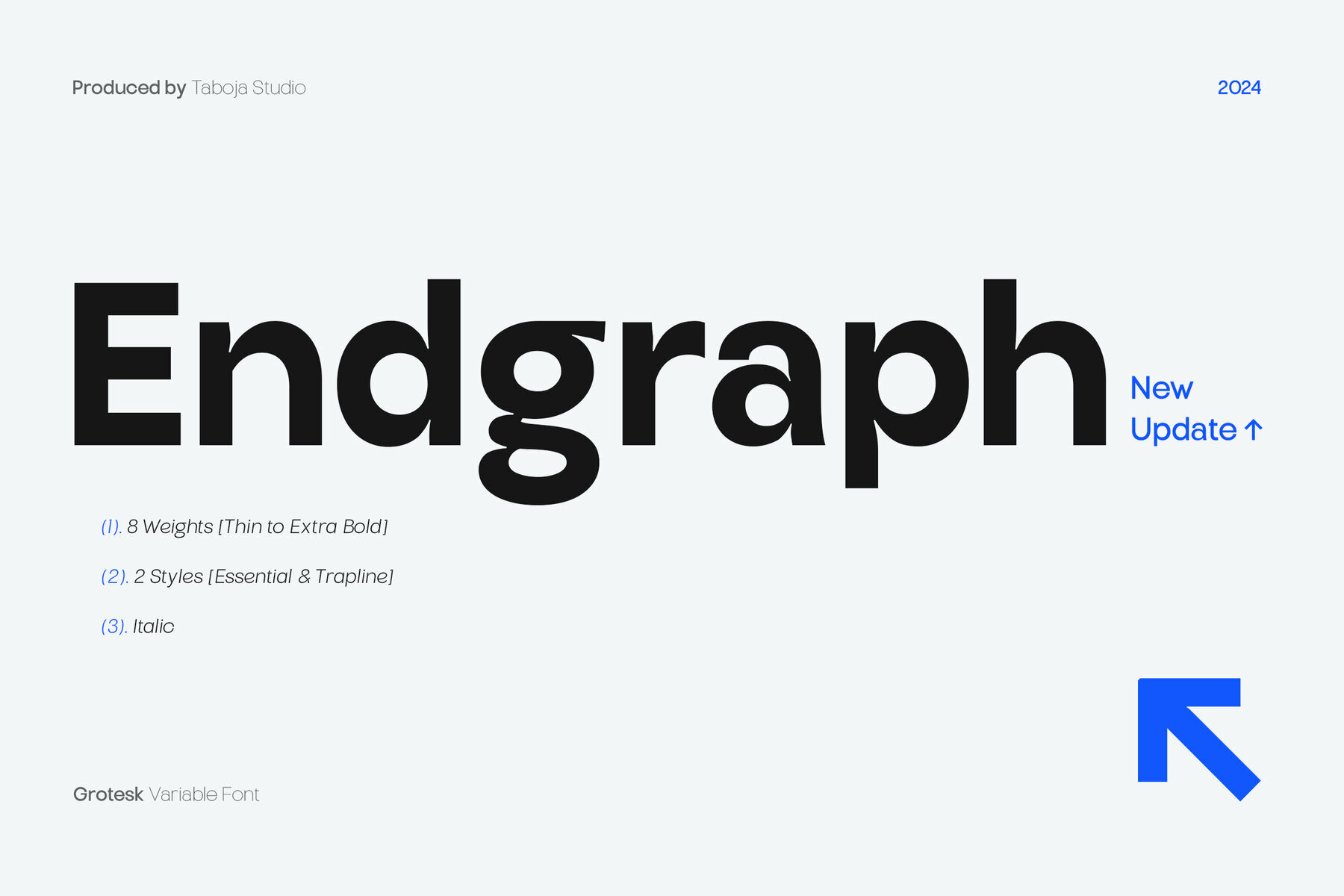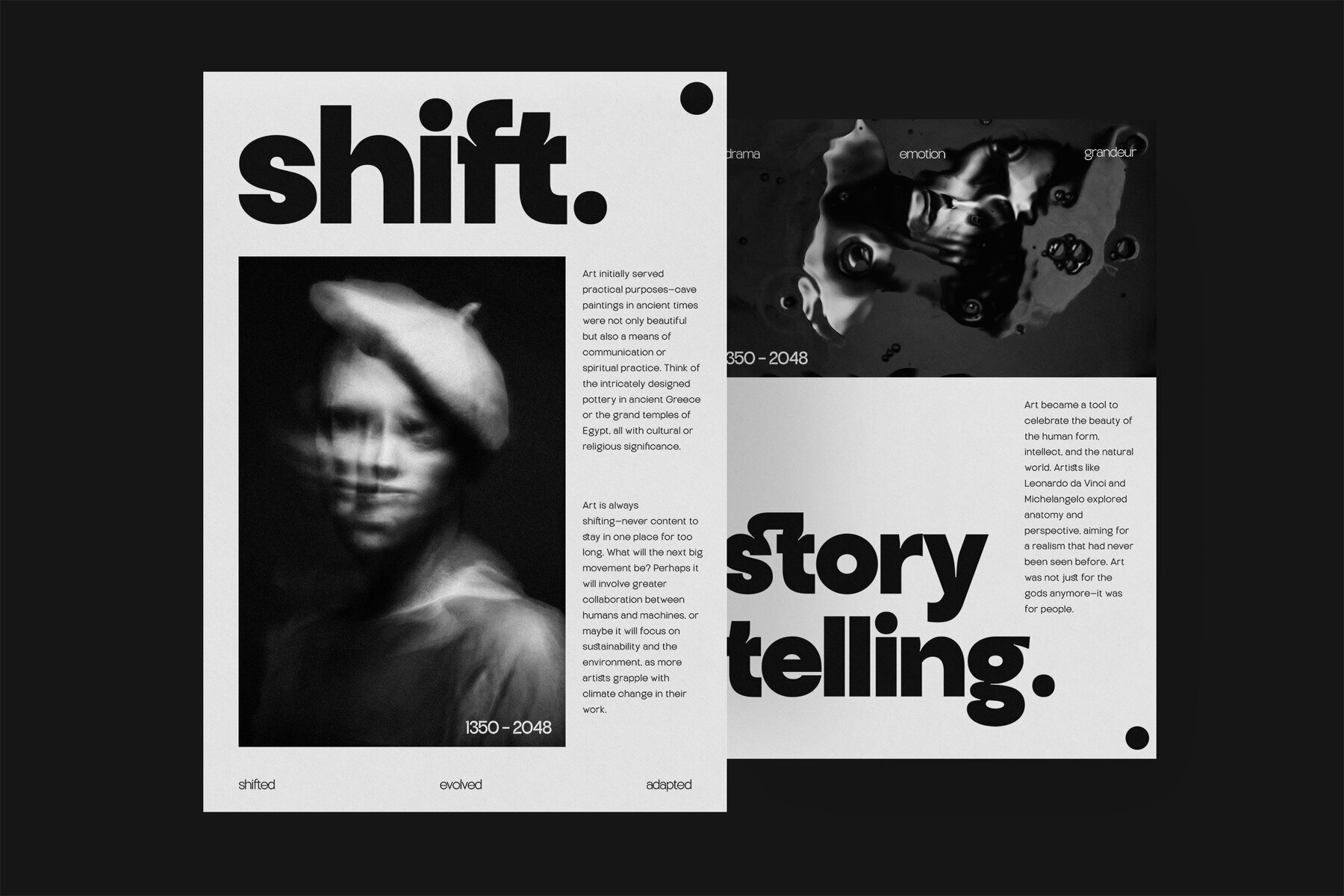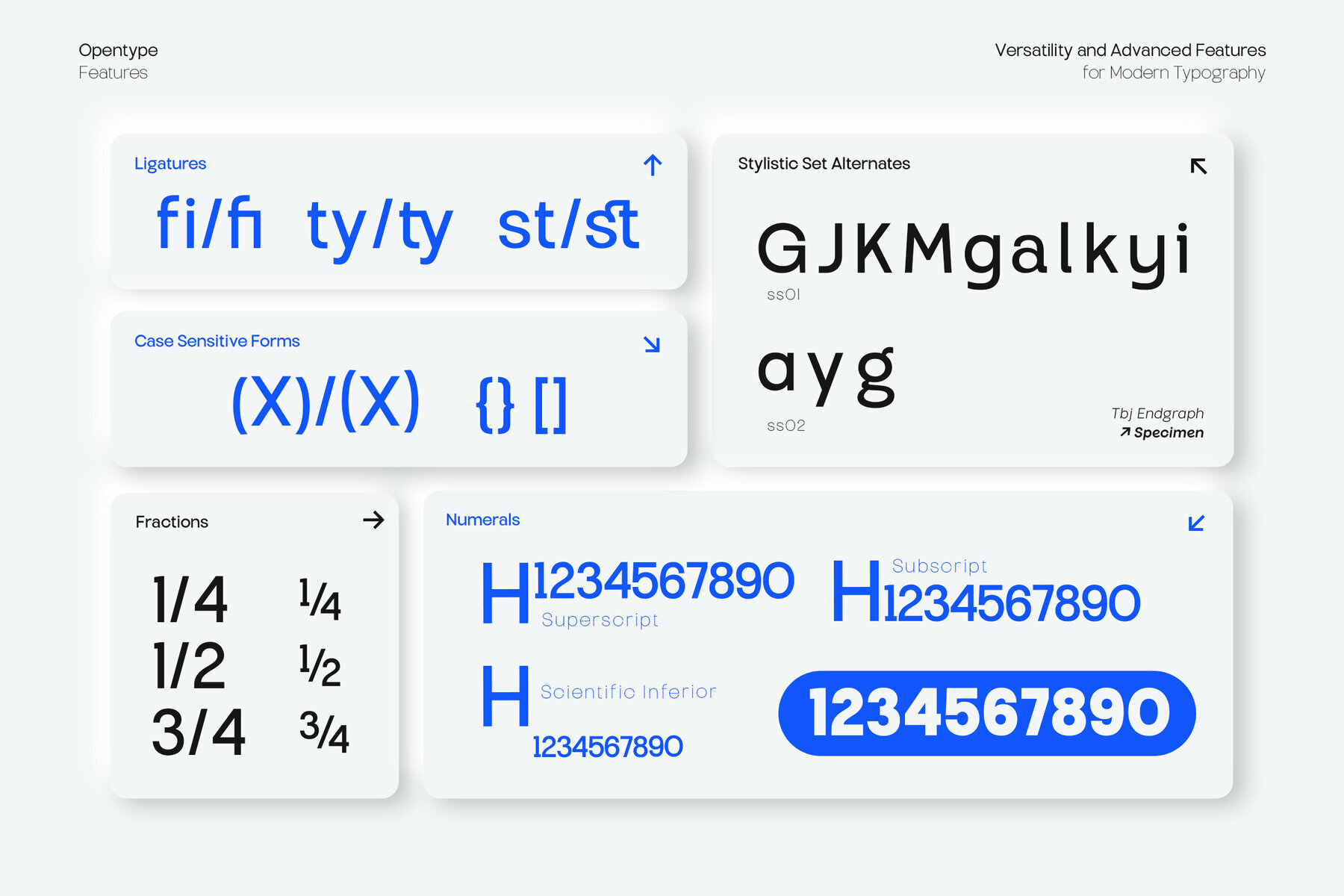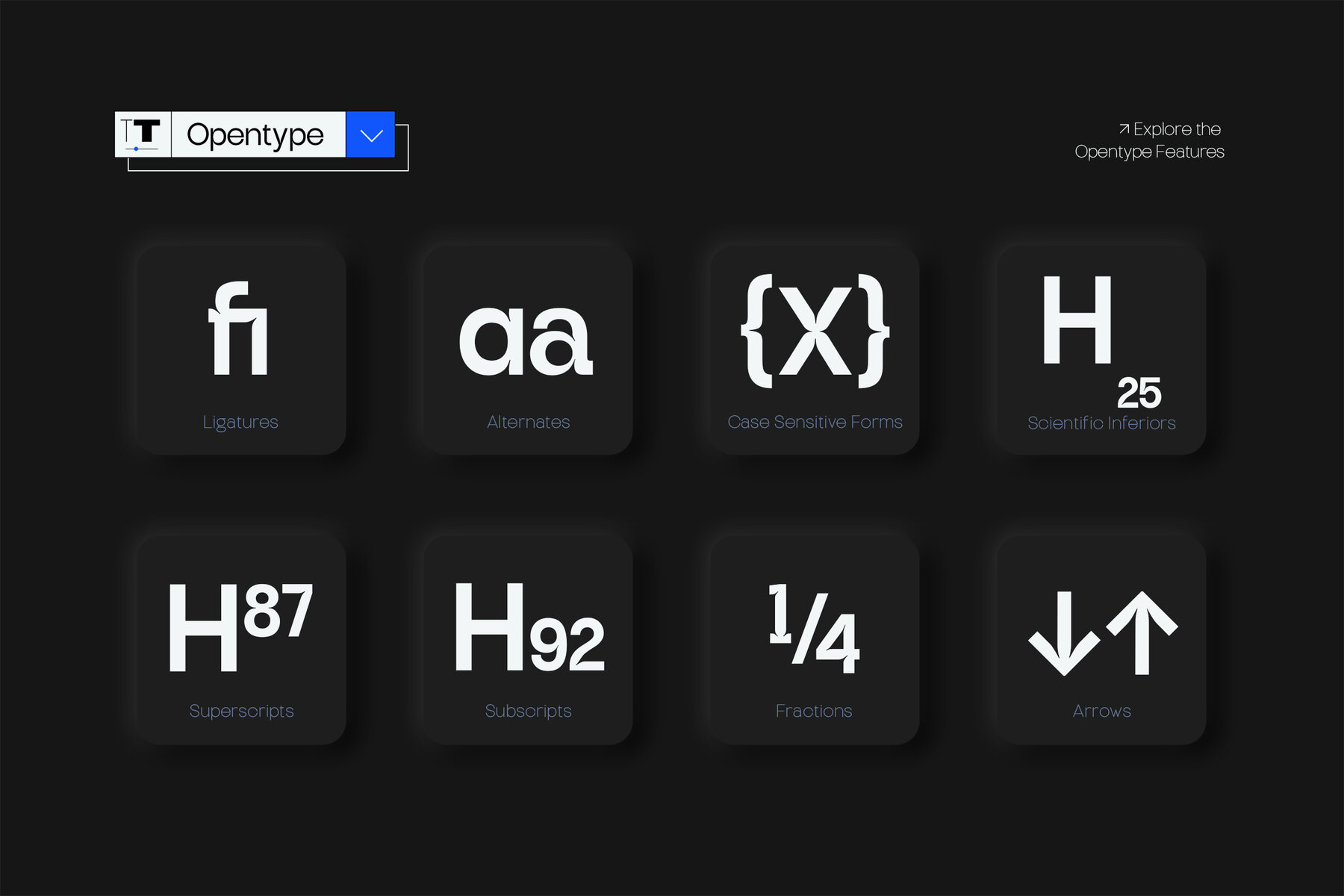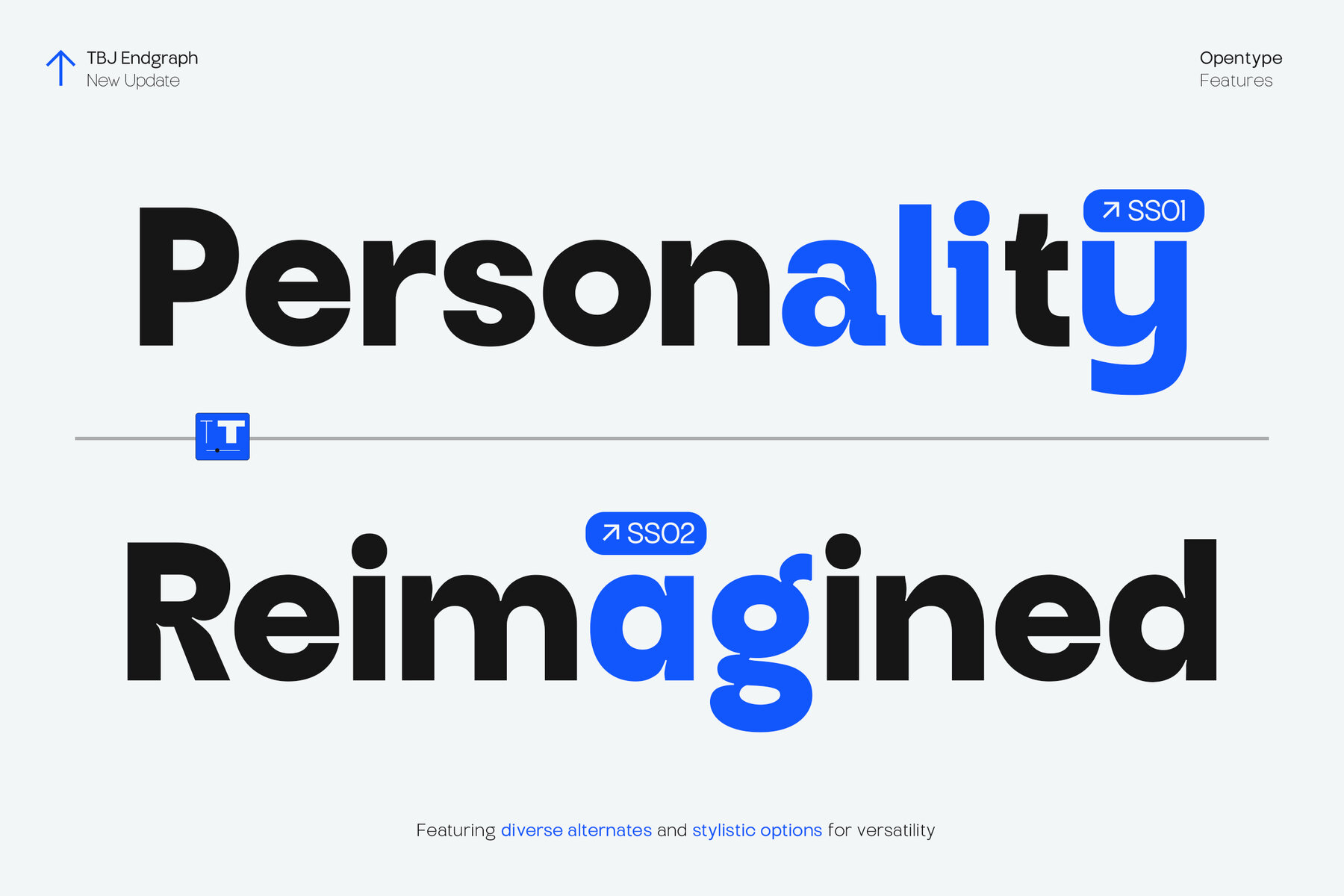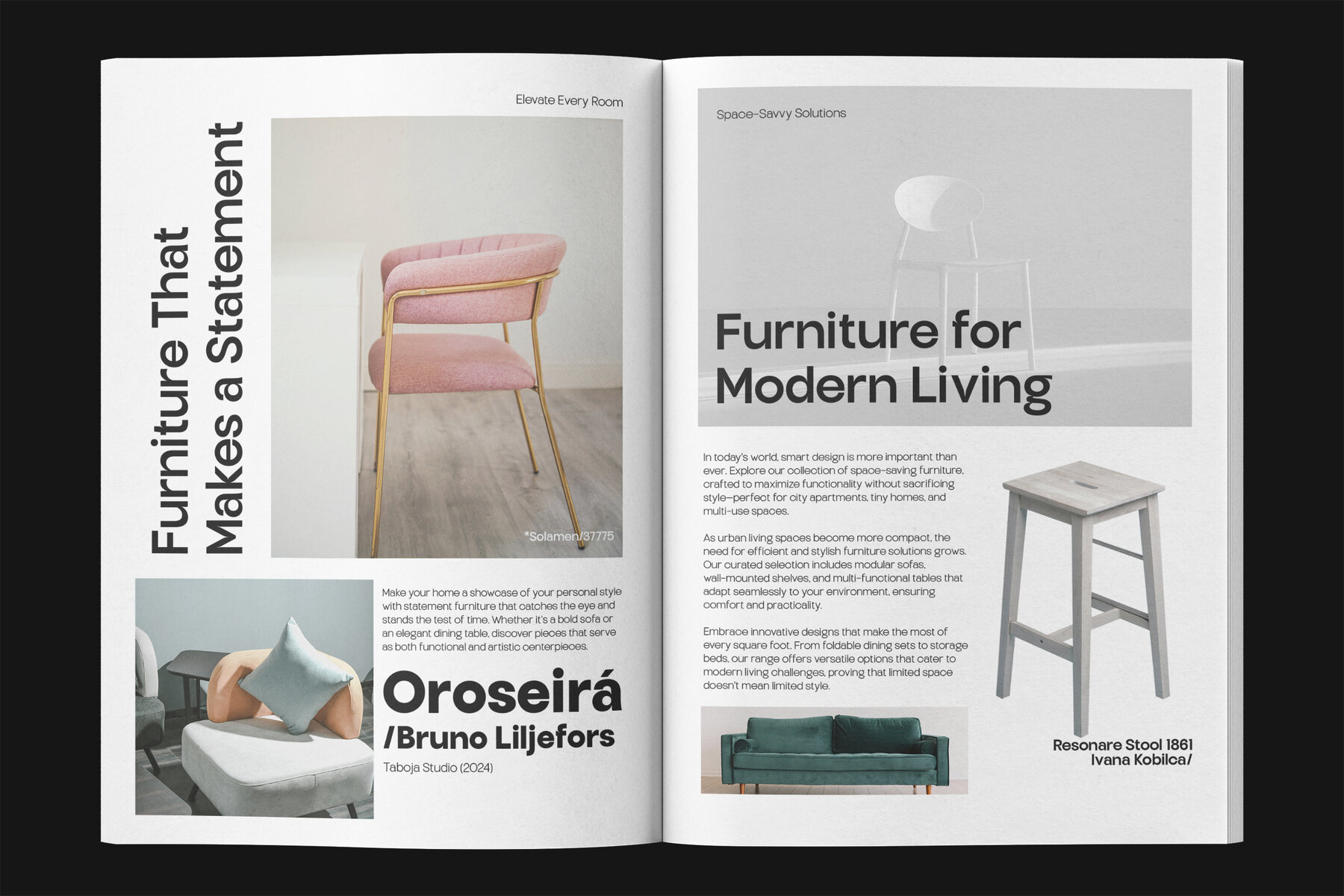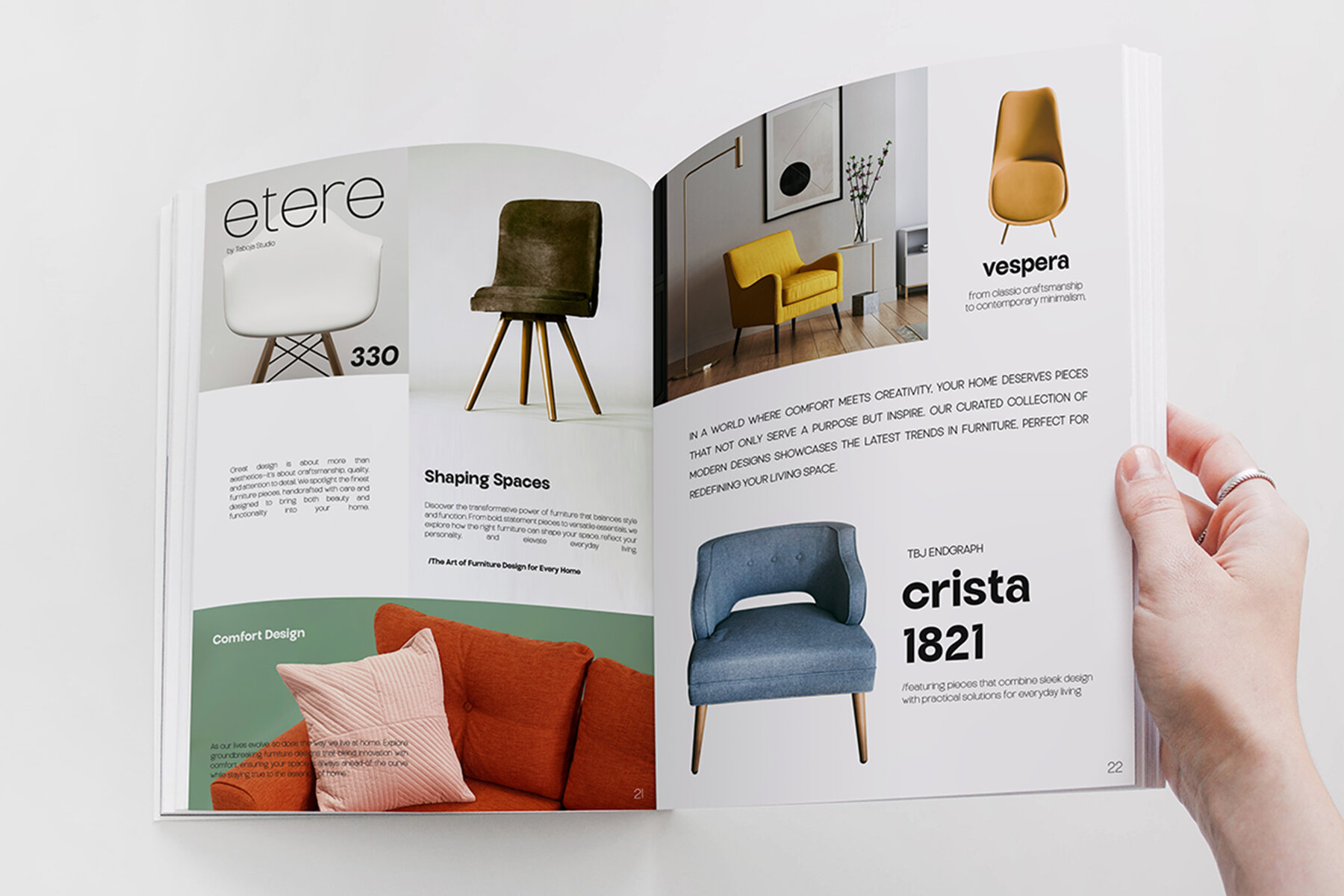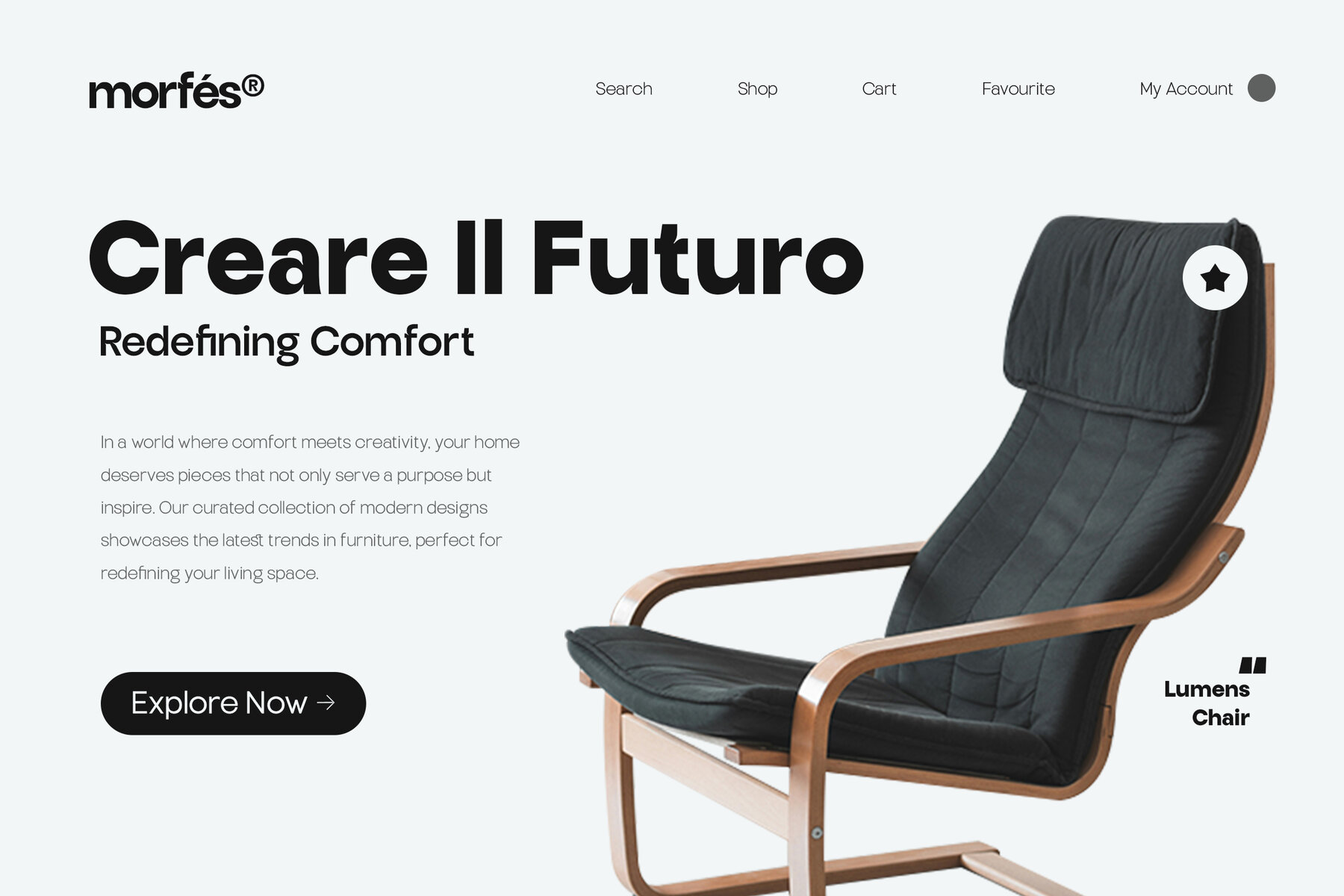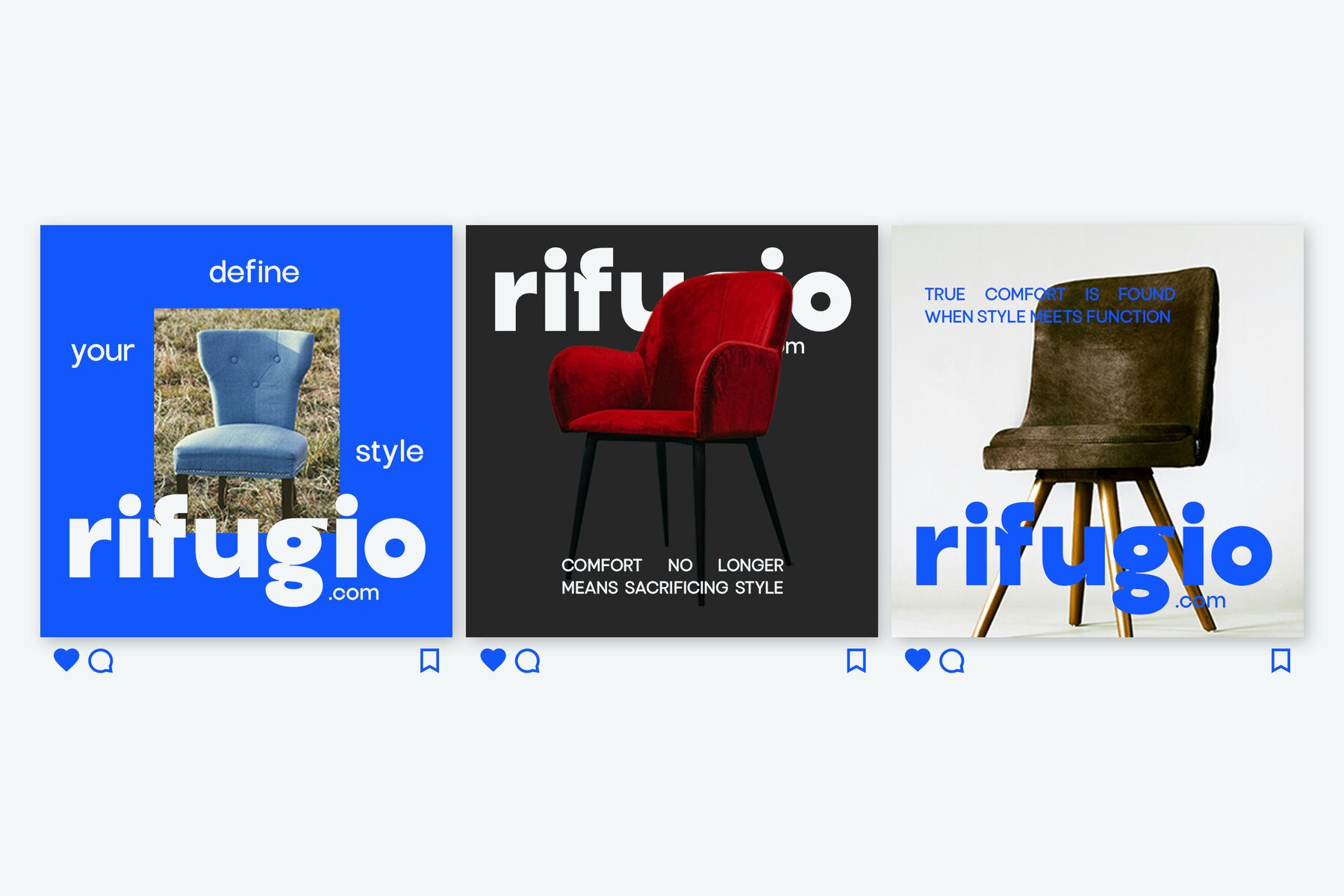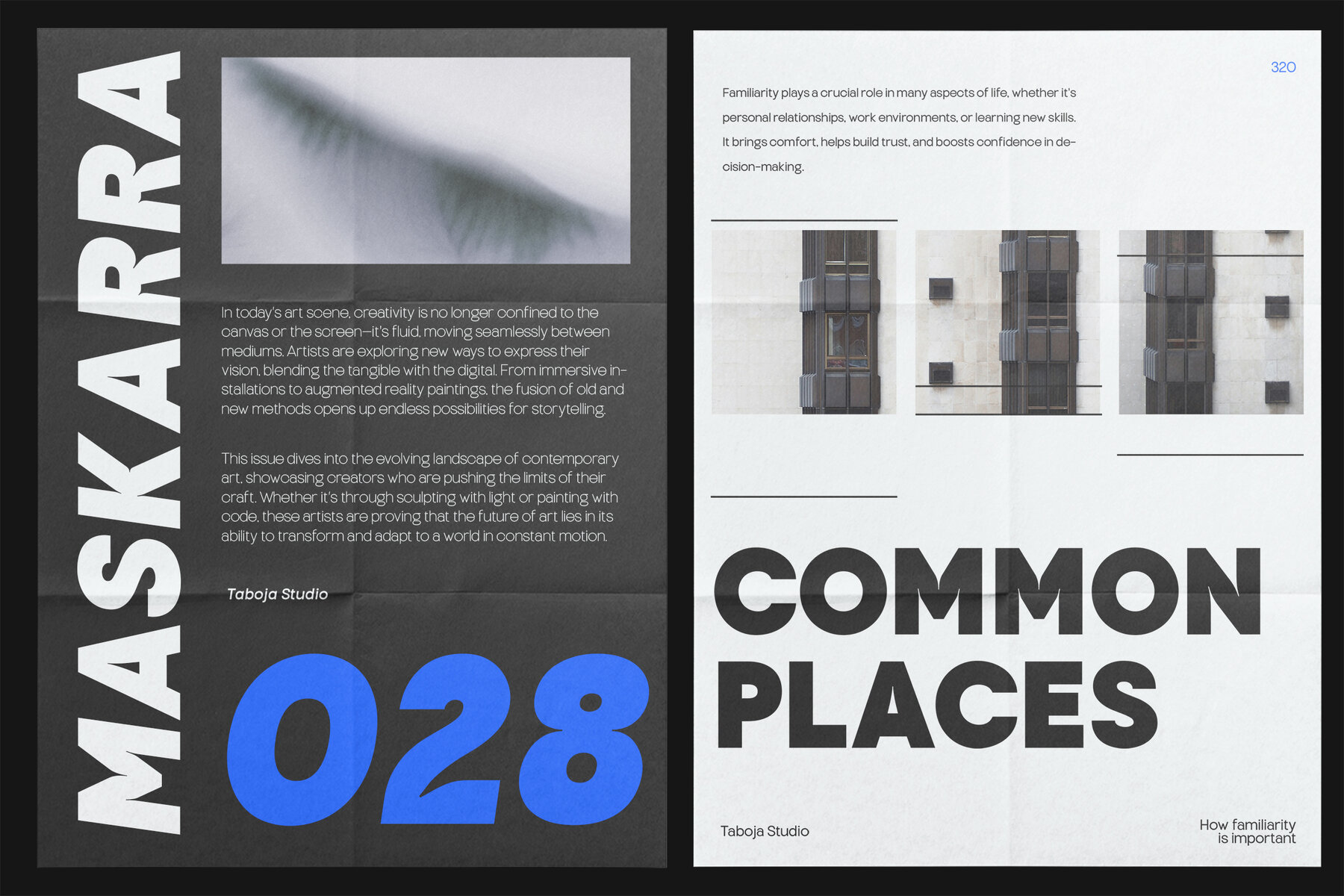
TBJ Endgraph Font
New Update Version 2!!! Introducing TBJ Endgraph Essential & Trapline, a sleek and modern sans serif font family that perfectly blends geometric precision with grotesque warmth. With 8 versatile weights, from Thin to Extra Bold, and2 Styles Essential & Trapline. TBJ Endgraph is designed to fit seamlessly into any project, whether it's a logo, website, or print material. Its clean lines and balanced shapes make it a reliable choice for designers seeking both style and readability. Each weight of TBJ Endgraph adapts effortlessly to various design needs, ensuring a consistent and professional look across all your creative works. From bold headlines to detailed body text, this font family provides the flexibility and elegance you need. Give your projects a contemporary edge with TBJ Endgraph, a font family that's as flexible as it is attractive. TBJ Endgraph Includes: While using this product, if you encounter any problem or spot something we may have missed, please don't hesitate to drop us a message. We'd love to hear your feedbacks in order to further fine-tune our products.